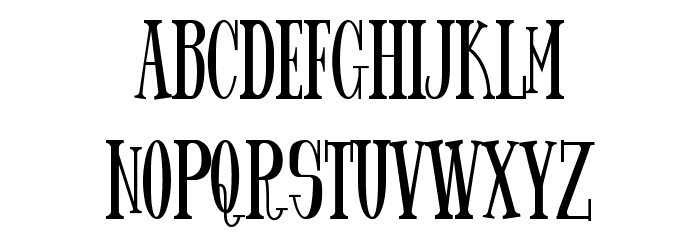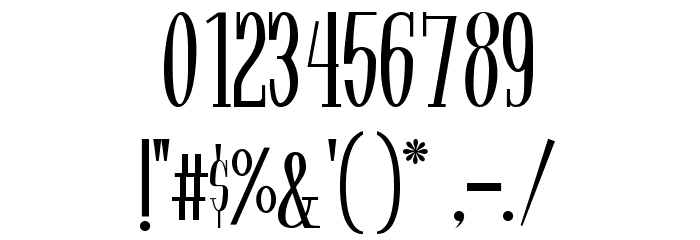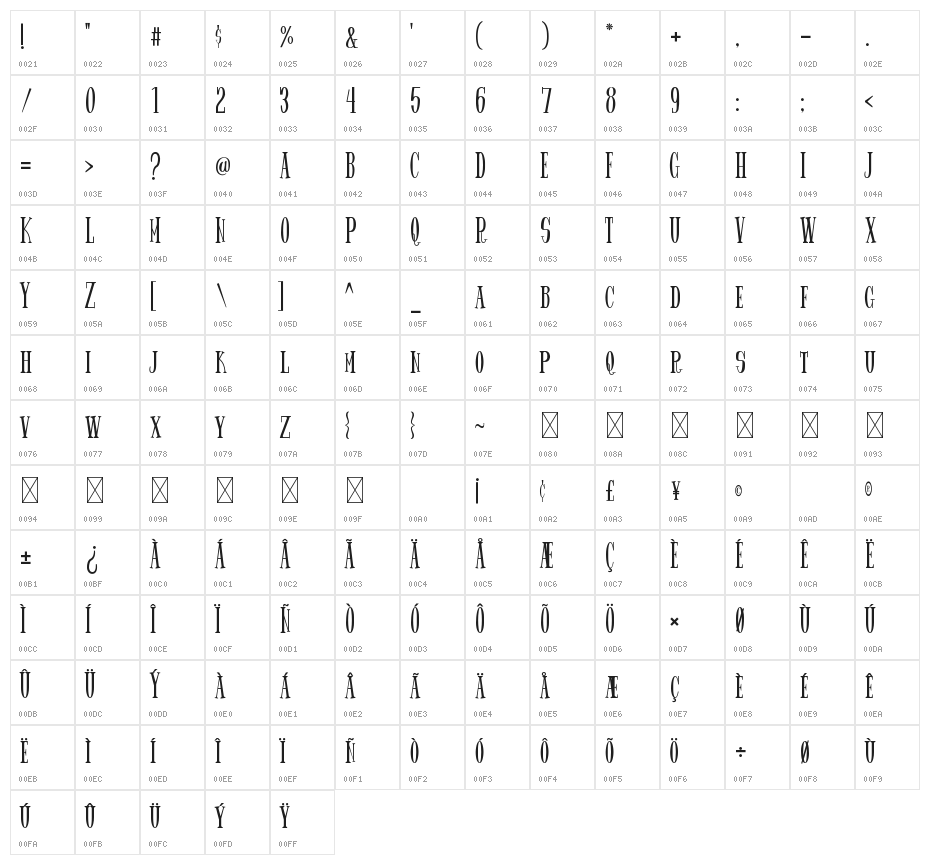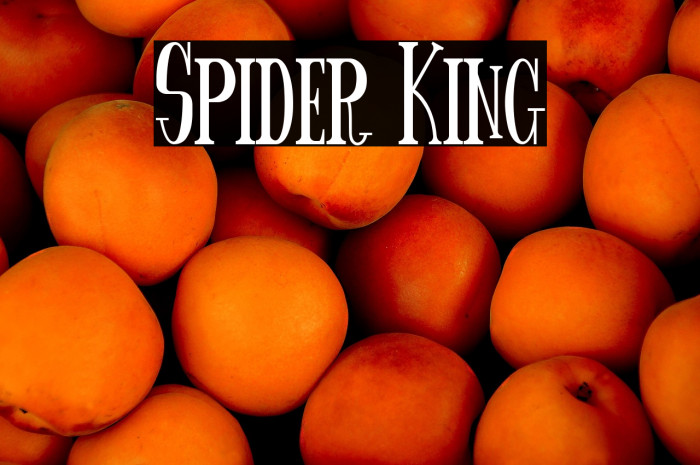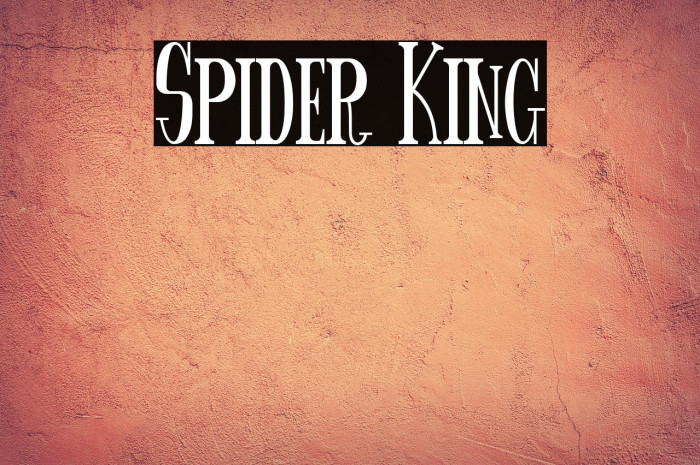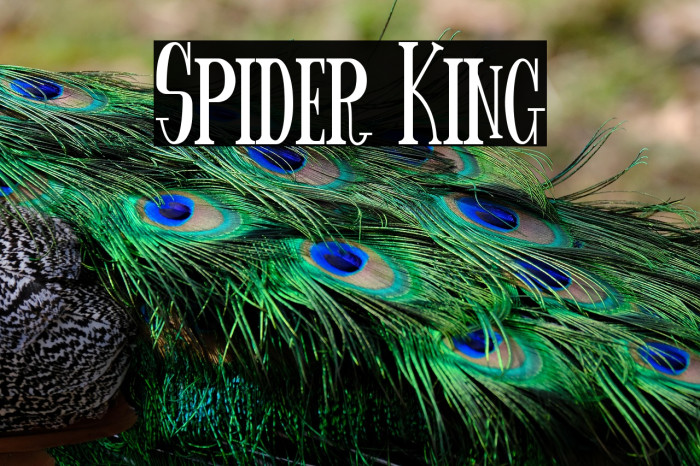
Spider King Font
This font features a distinctive decorative style with elongated and slightly curved serifs, giving it a regal and dramatic appearance. The uppercase letters are tall and narrow, with a consistent stroke width that adds to its elegant and sophisticated look. The lowercase letters maintain the same stylistic elements, ensuring uniformity across the typeface. The numerals are similarly styled, with a unique flair that complements the overall design. Special characters are included, matching the ornate and intricate details of the alphabet. This font is ideal for projects that require a touch of grandeur and elegance.
A decorative font with elongated serifs and a regal, sophisticated style.
- Font: Spider King